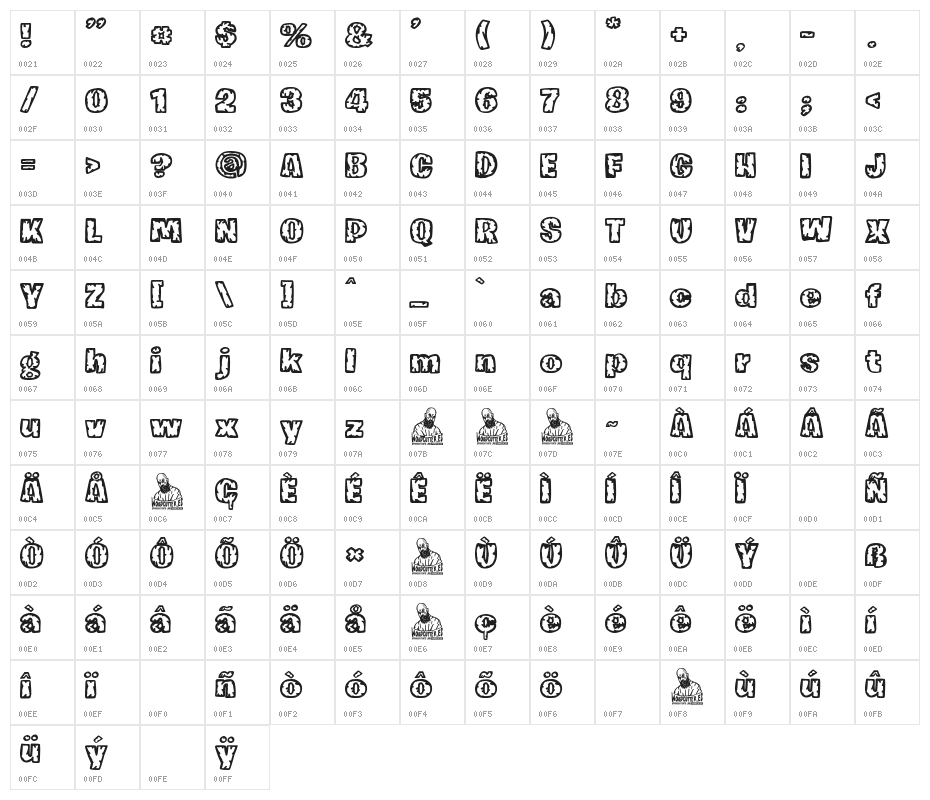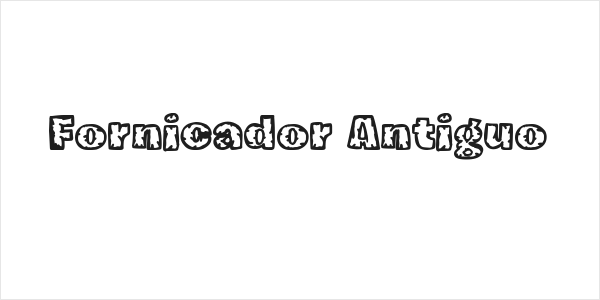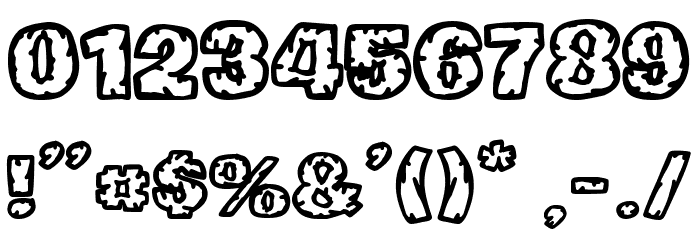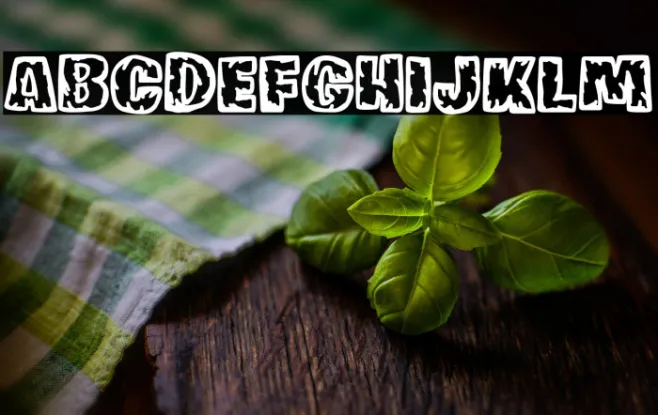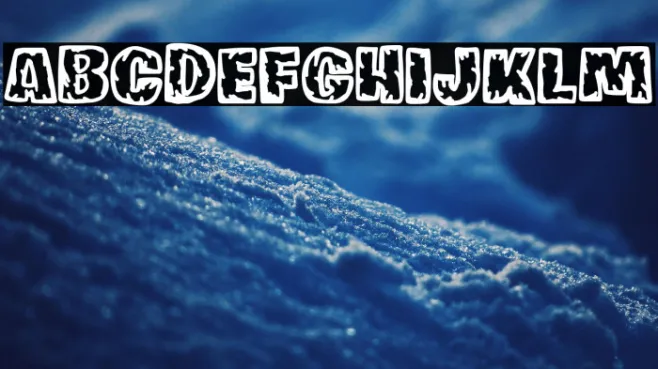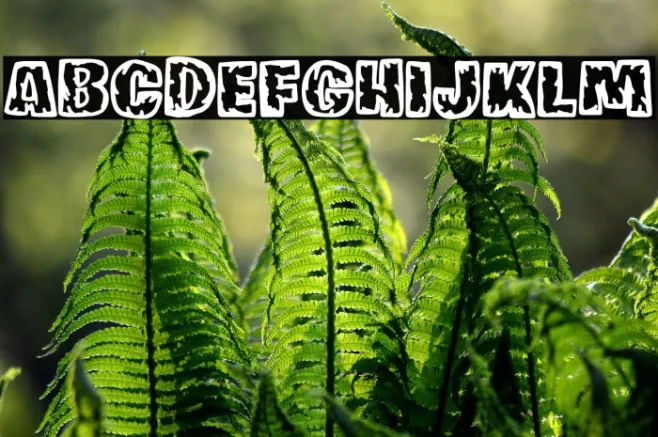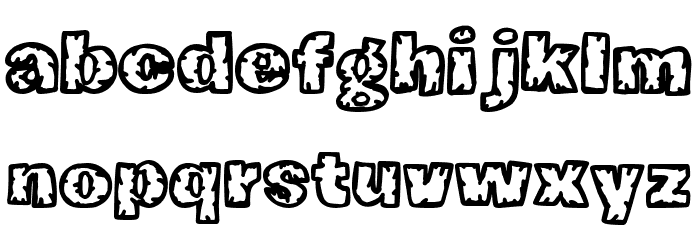
Fornicador Antiguo Font
Fornicador Antiguo Description
This font features a bold and playful design with a distressed, textured appearance. Each character is outlined with a thick, uneven stroke, giving it a rugged and vintage feel. The letters are uppercase and lowercase, with numbers and a variety of special characters included. The overall style is reminiscent of hand-drawn or graffiti art, making it stand out with its unique and artistic flair. Its boldness and decorative nature make it suitable for eye-catching designs.
| Overall Style | Vintage, Decorative |
| Proposed Projects | Ideal for posters, album covers, event flyers, and any project needing a bold, artistic touch. |